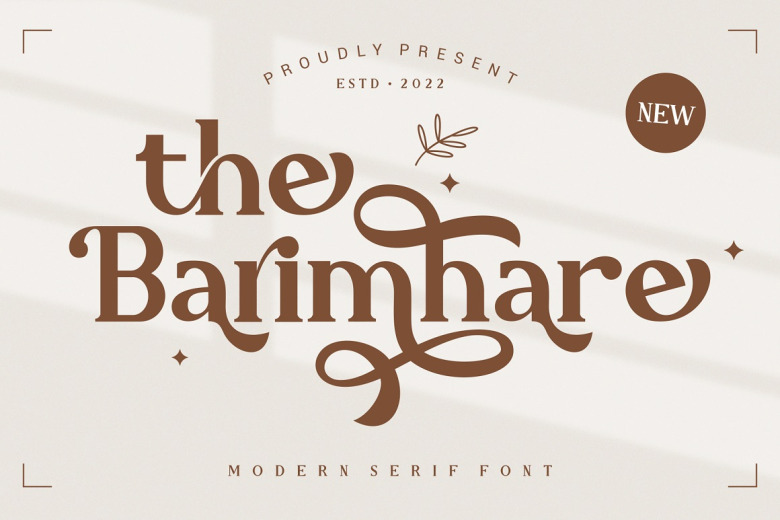
The Barimhare Font
The Barimhare is a stylish and modern serif font. This font is PUA encoded which means you can access all of the glyphs and swashes with ease! With 275 ligatures, it is perfect for feminine, chic designs!
The Barimhare Serif Font